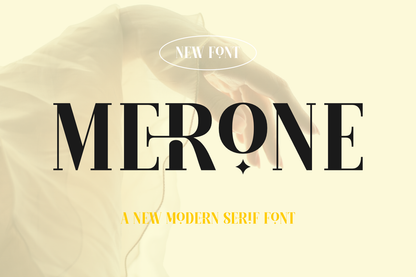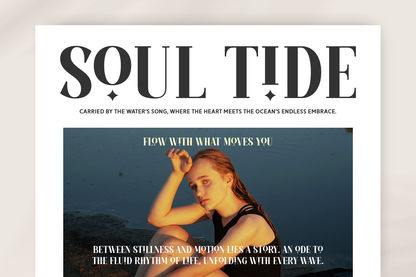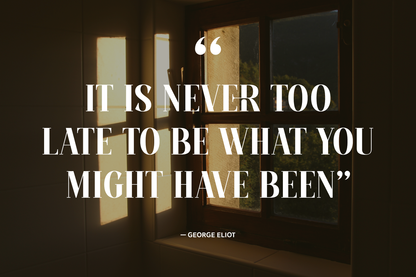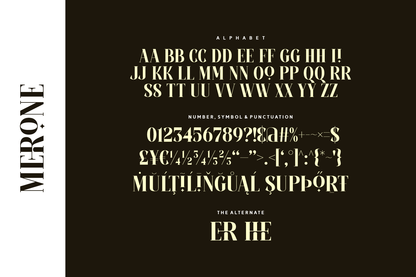
Merone is a new modern serif font with bold geometry and daring details. The unique letterforms feature distinctive cuts, elegant curves, and artistic flares, creating a confident typeface with attitude. It's ideal for branding projects that demand a strong presence, as well as magazine titles, posters, and stylish logos.
This font merges modernity with personality, effortlessly blending clean lines with unexpected design elements. Merone stands out in any setting, making your message both stylish and unforgettable.